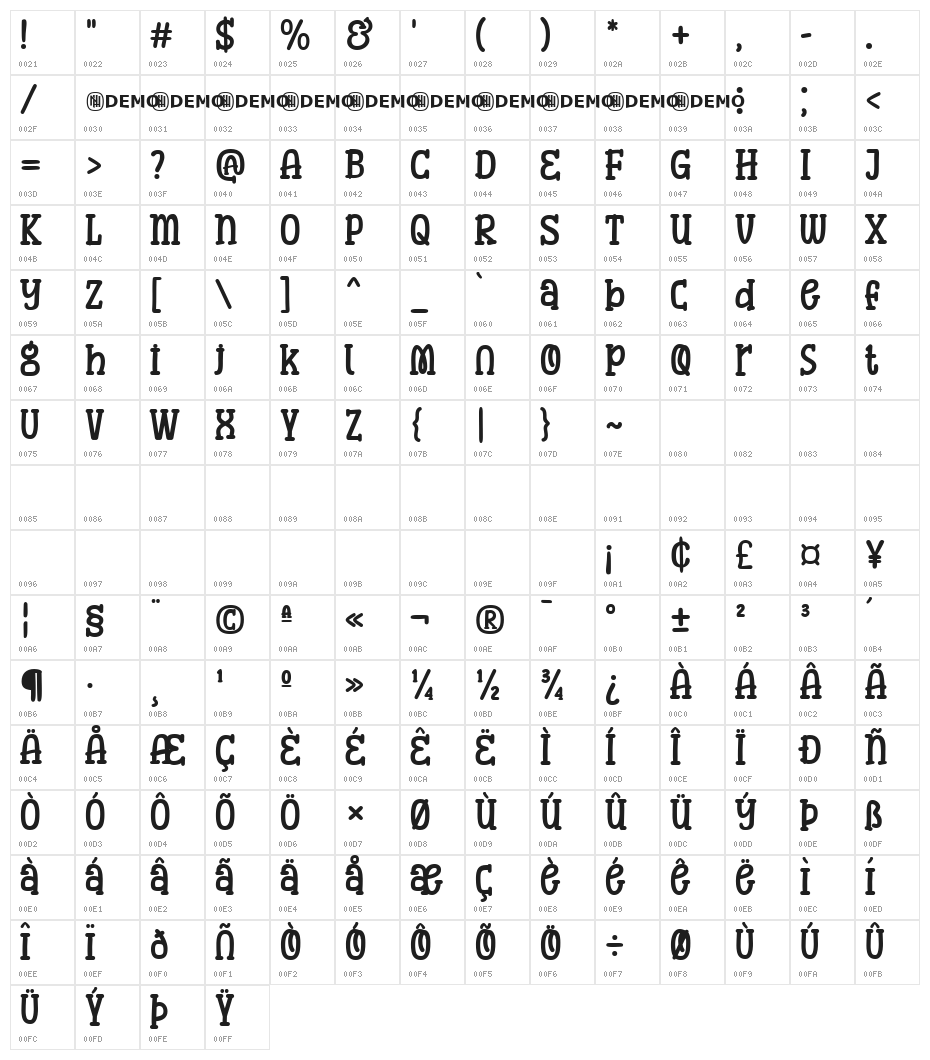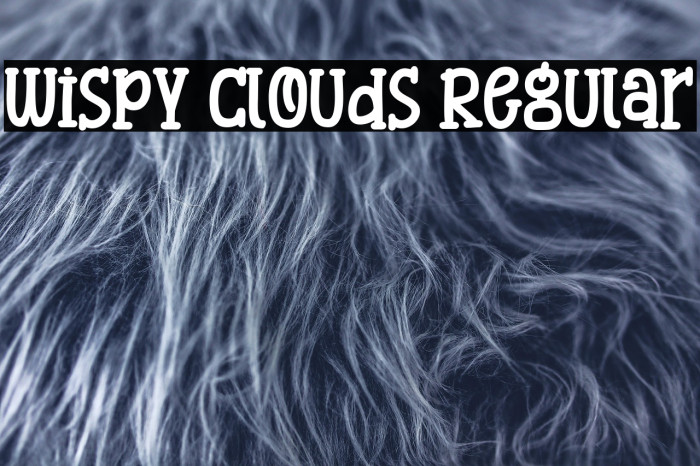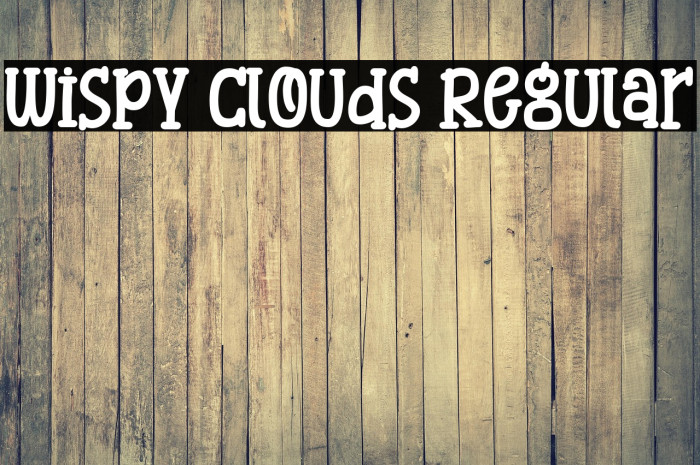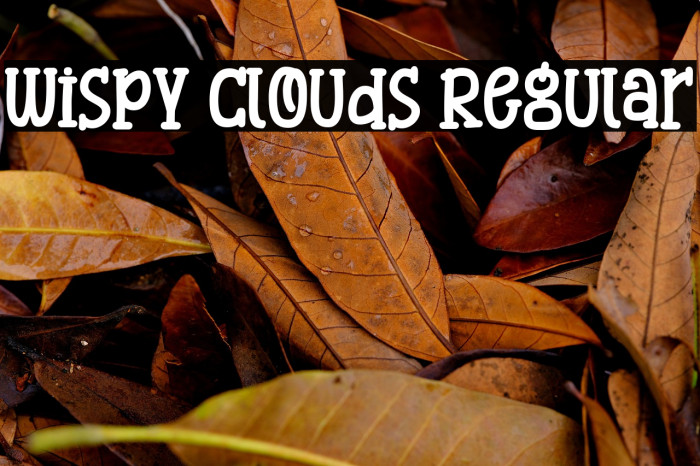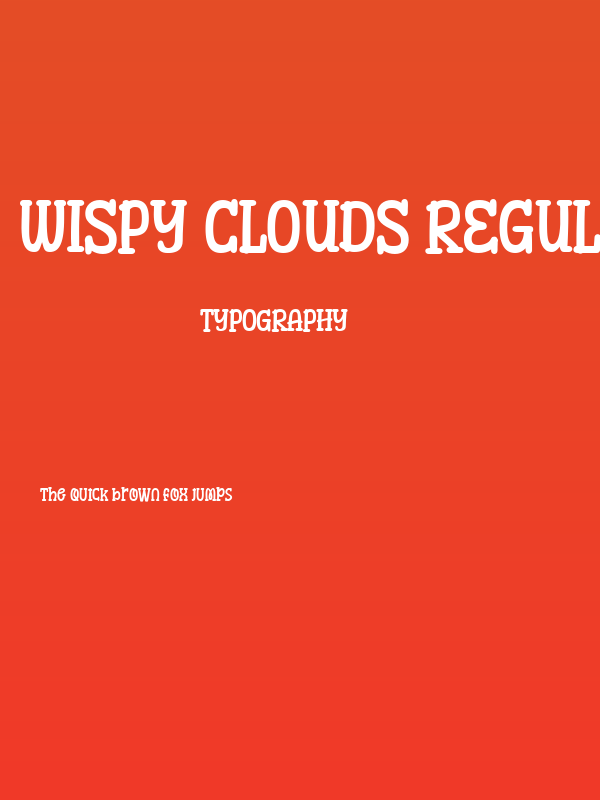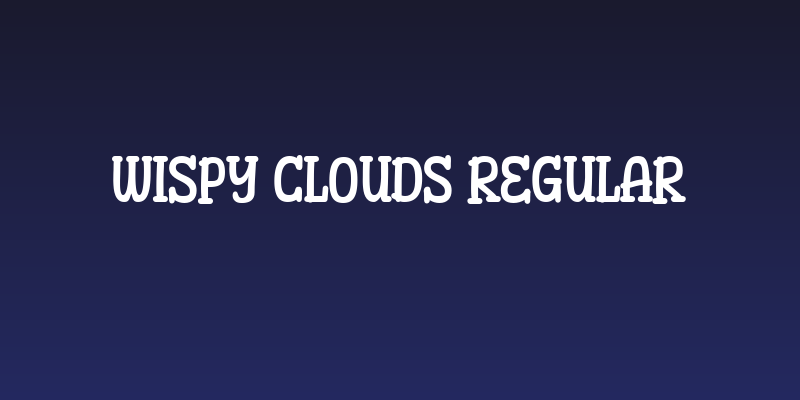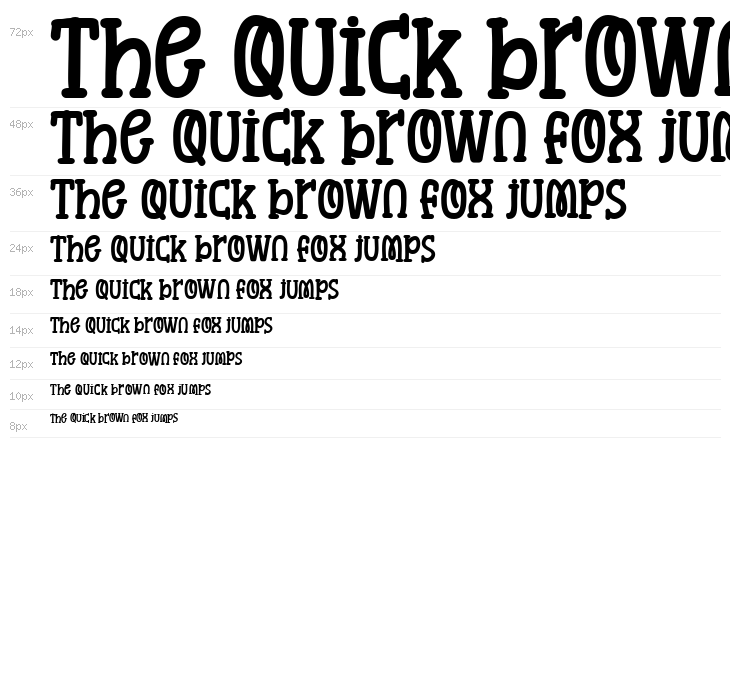
Wispy Clouds Regular Font
Wispy Clouds Regular Description
This font features a playful and whimsical design, characterized by its bold, rounded letterforms and unique, decorative elements. The uppercase and lowercase letters exhibit a consistent thickness, with subtle curves and loops that add a touch of charm. The numerals and special characters maintain this playful aesthetic, making the font suitable for creative and informal applications. Its distinct style is eye-catching and memorable, ideal for projects that require a fun and engaging visual appeal.